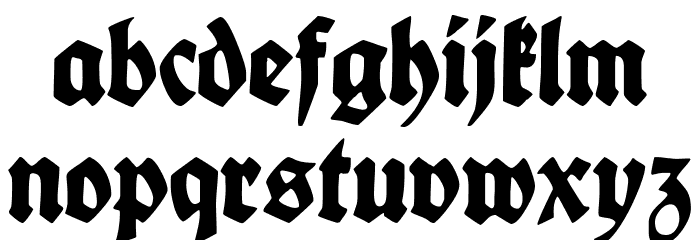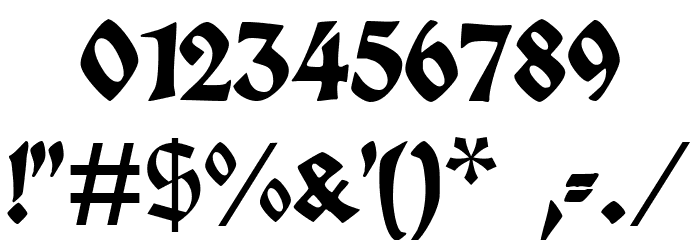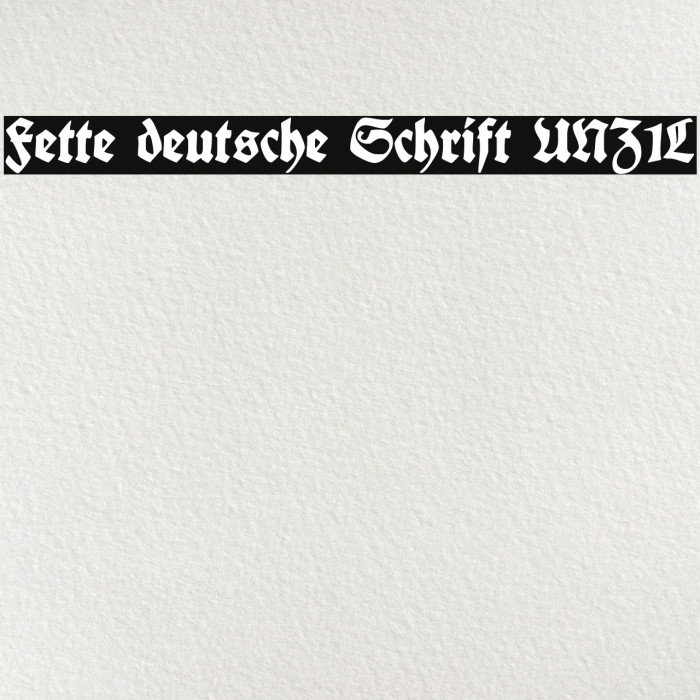
Fette deutsche Schrift UNZ1L Font
This font exhibits a traditional blackletter style, characterized by its bold and dramatic strokes. The uppercase letters are ornate, with sharp angles and intricate details that give a sense of historical elegance. The lowercase letters maintain the same level of detail, providing a cohesive look throughout. The numerals are consistent with the overall style, offering a unique and distinctive appearance. Special characters are designed with the same attention to detail, ensuring they blend seamlessly with the rest of the font. This typeface is reminiscent of medieval manuscripts and Gothic architecture, making it ideal for projects that require a touch of historical or classical flair.
A bold, blackletter font with intricate details and a historical feel.
- Proposed Projects: Ideal for historical documents, certificates, book covers, or branding that requires a classic and authoritative look.
- Overall Style: Classic
- Use Case: Logos, Headlines, Decorative text